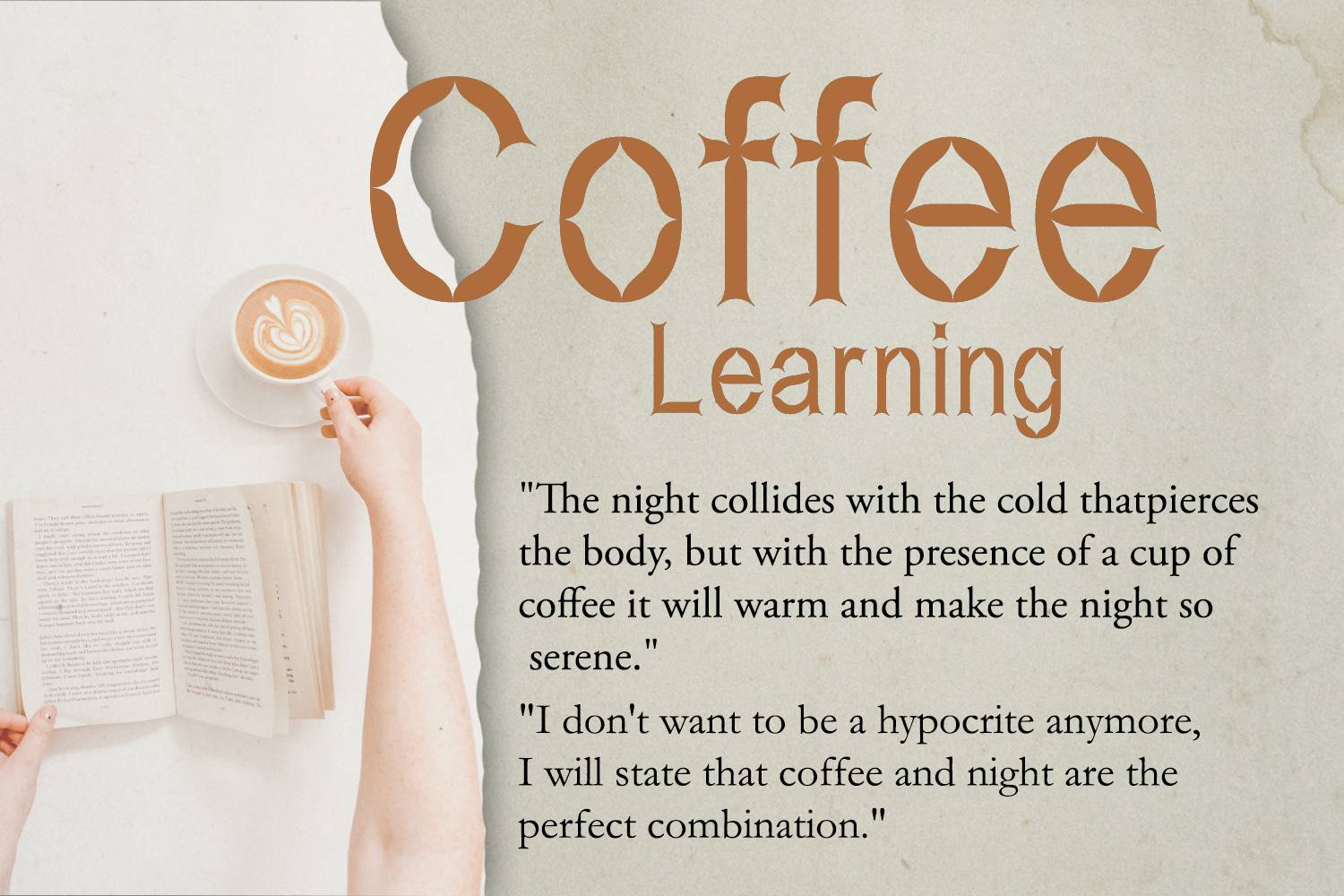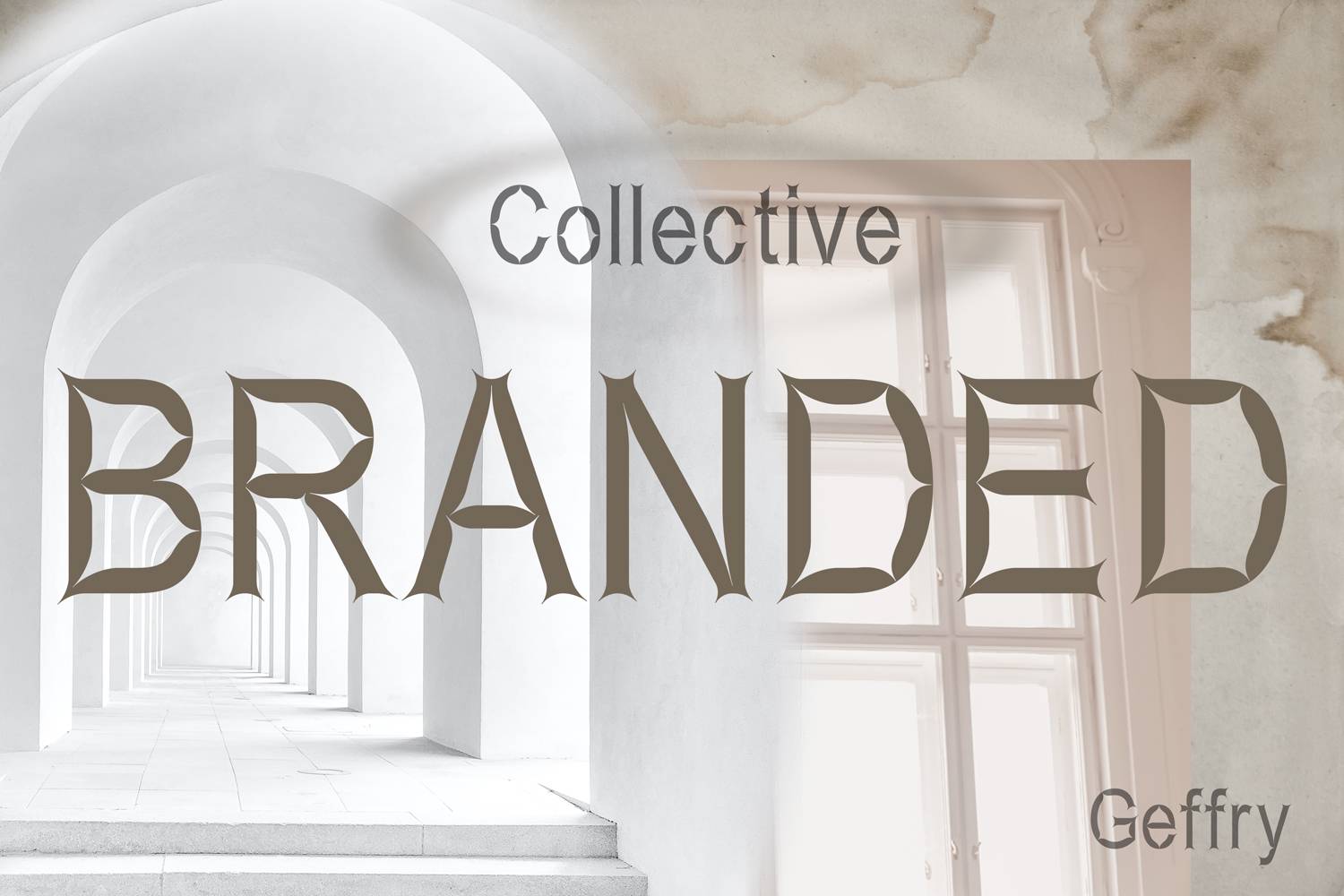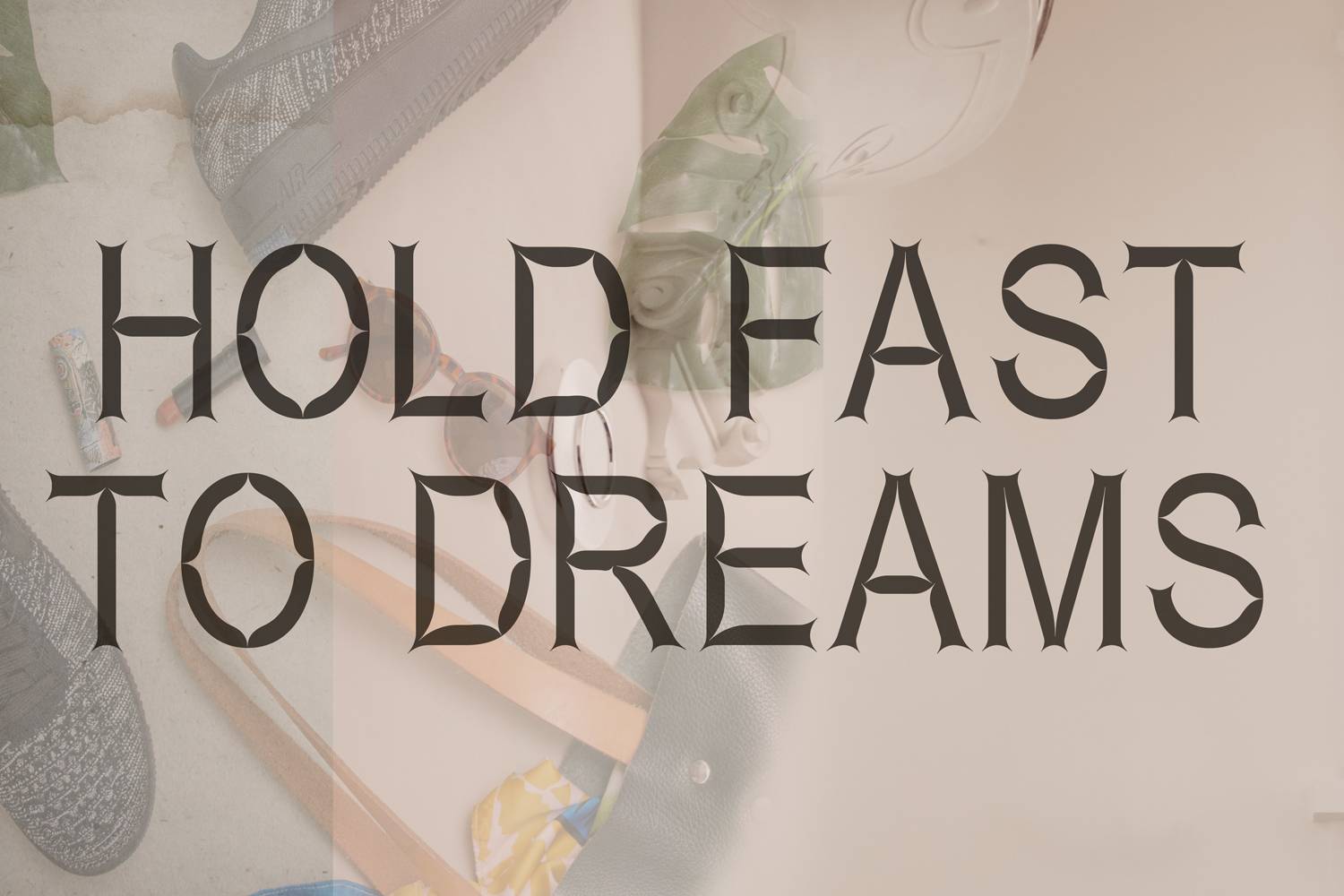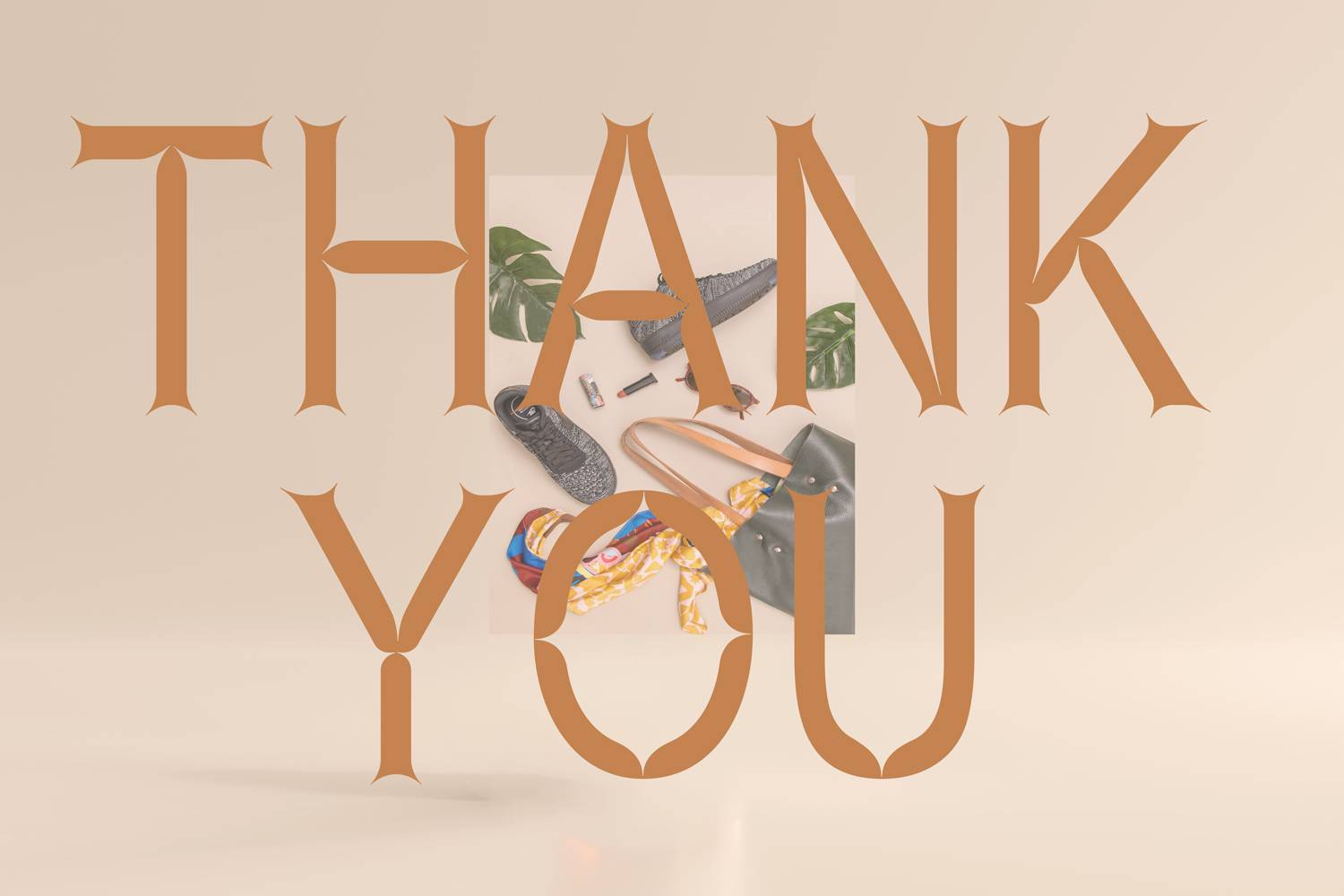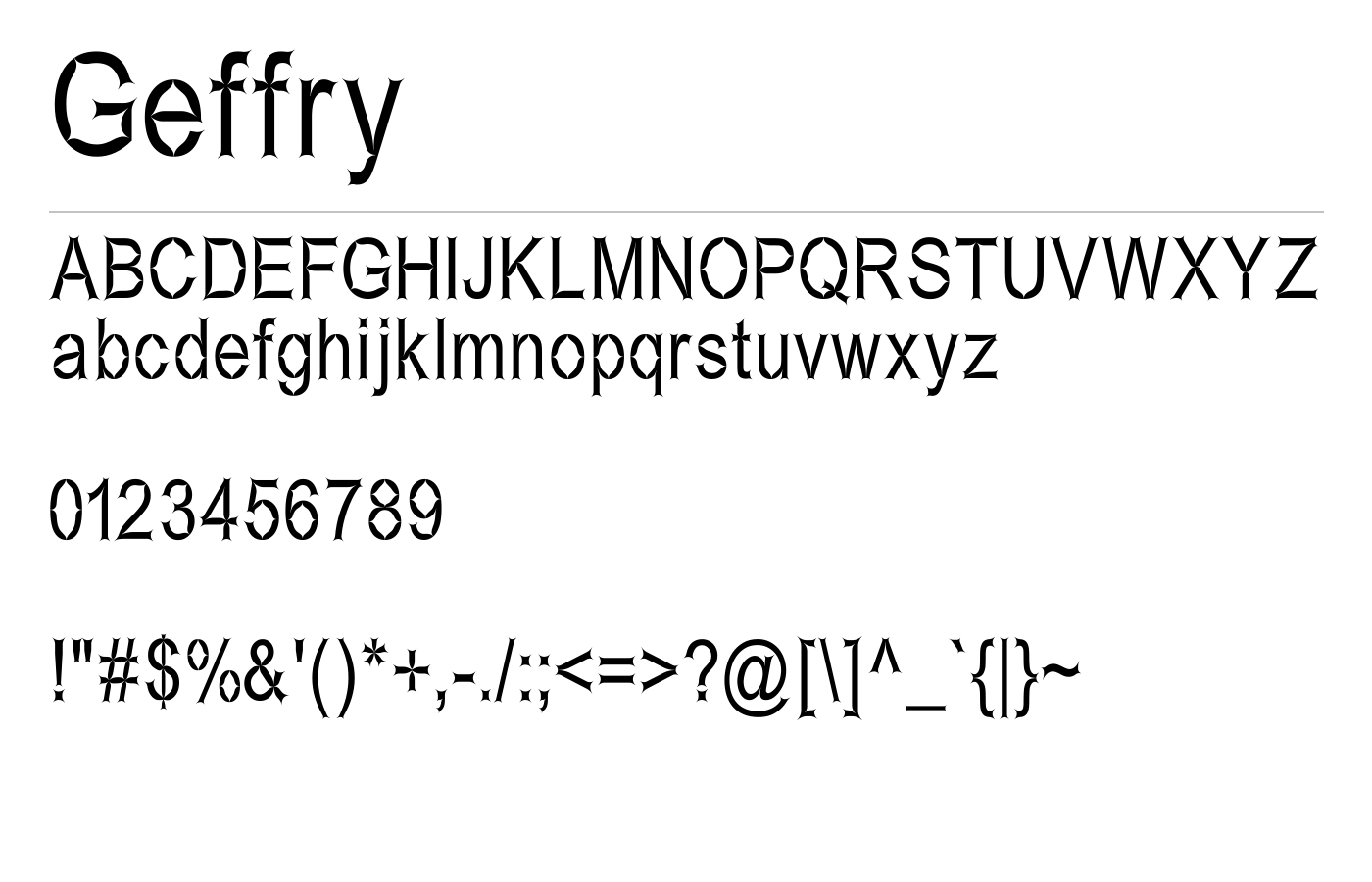
Geffry is a distinctive serif font with a narrow and tall structure, characterized by sharp, pointed serifs and a high contrast between thick and thin strokes. Its elegant yet slightly gothic style gives it a decorative and refined personality, making it well-suited for branding, headlines, and editorial designs that seek a unique, sophisticated look. This font works best where impactful, stylized text is needed, such as logos, luxury packaging, or artistic posters.
Geffry Font